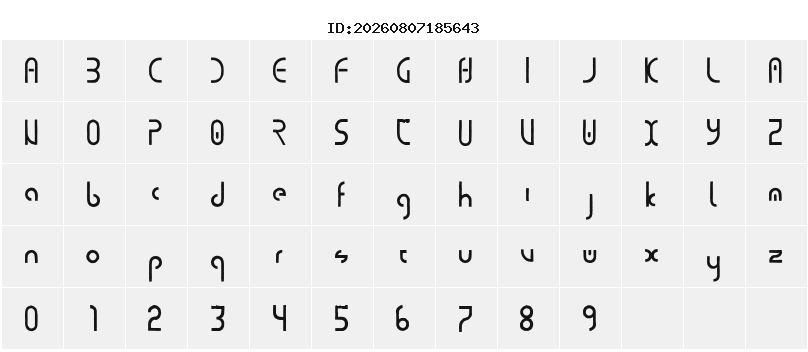
purecircles Preview
• Font Name: purecircles
• Font ID: Fontographer 4.7 purecircles
• Full Font Name: purecircles
• Version: Fontographer 4.7 15.07.2014 FG4M­0000001627
• PostScript Name: Purecircles
About purecircles.ttf
purecircles.ttf is a modern, elegant sans-serif font designed for ultimate readability and visual harmony. Perfect for branding, headlines, web design, and print materials.